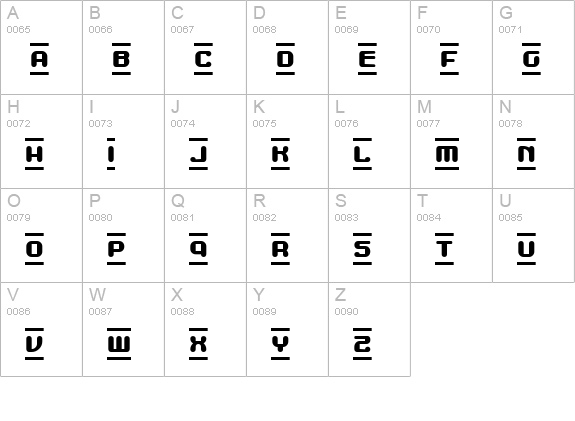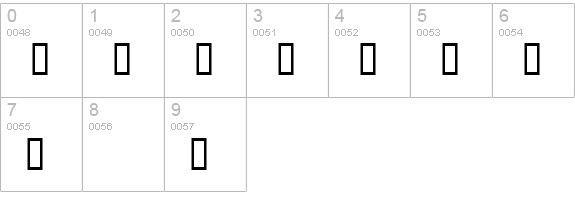
MDMA (beta) Font Details
MDMA (beta) font is a versatile and modern typeface that exudes a sense of creativity and sophistication. With its sleek lines and stylish curves, this font is perfect for a wide range of design projects, from branding to editorial design. The bold yet elegant design of MDMA (beta) font makes it ideal for creating eye-catching headlines, logos, and posters. What sets MDMA (beta) font apart is its unique blend of futuristic aesthetics and classic elegance, making it a standout choice for designers looking to make a statement. Whether you're working on a sleek corporate project or a vibrant creative campaign, this font is sure to elevate your design to the next level. Best of all, MDMA (beta) font is completely free to download at FontsMarket.com. This means you can access this stylish typeface without any cost, making it a valuable addition to your font library. Don't miss out on the opportunity to enhance your designs with the bold and beautiful MDMA (beta) font today!